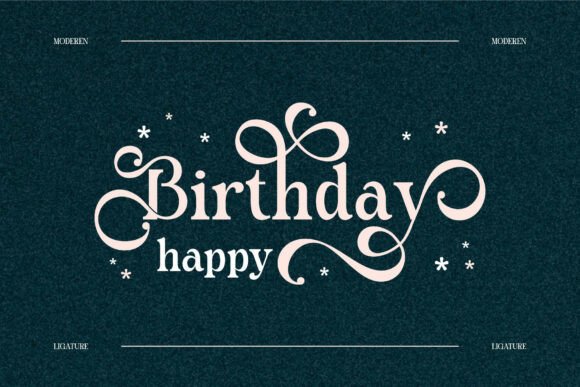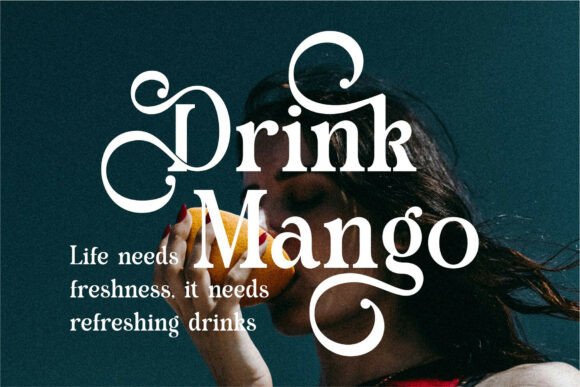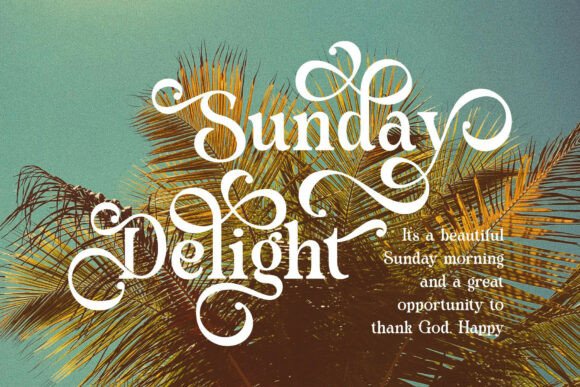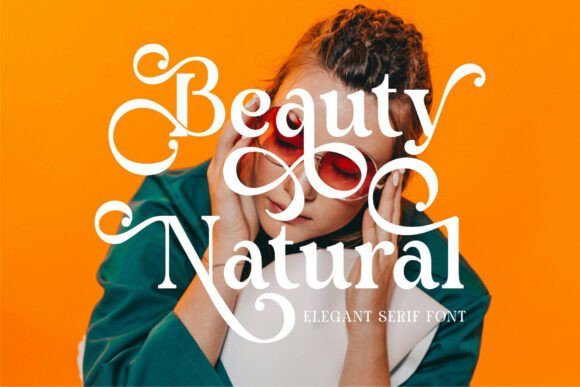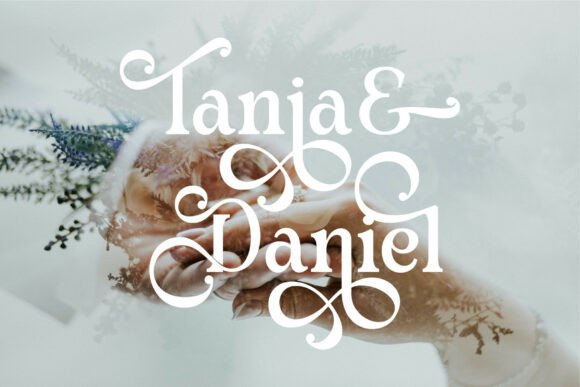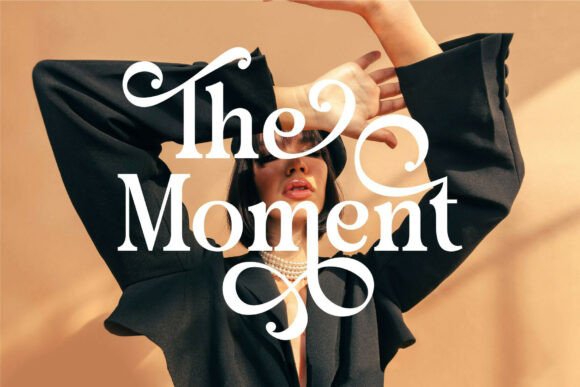
Birthday is an elegant serif typeface, inspired by the famous minimalist logo perfect for the purposes of designing templates, brochures, videos, advertising branding, logos, invitations, layout design, elegant crafting, beauty design, and more.
Birthday Font